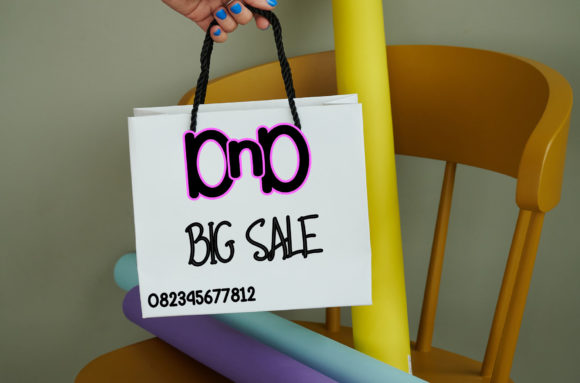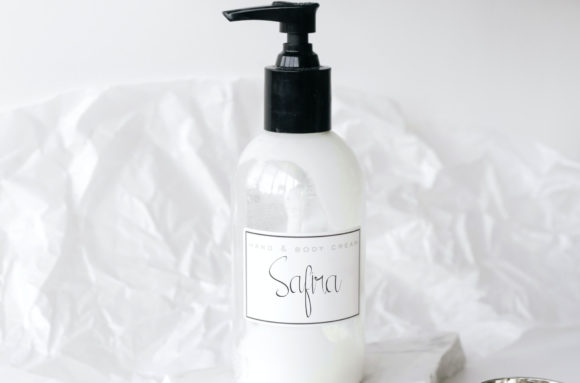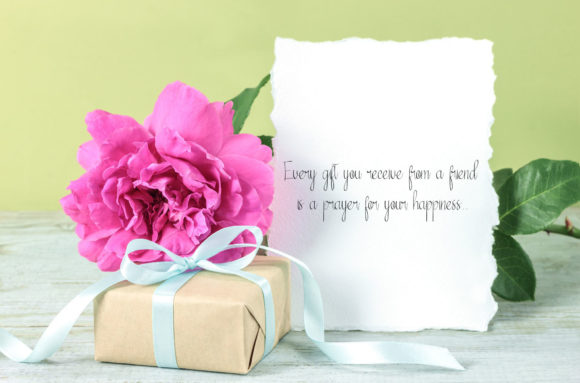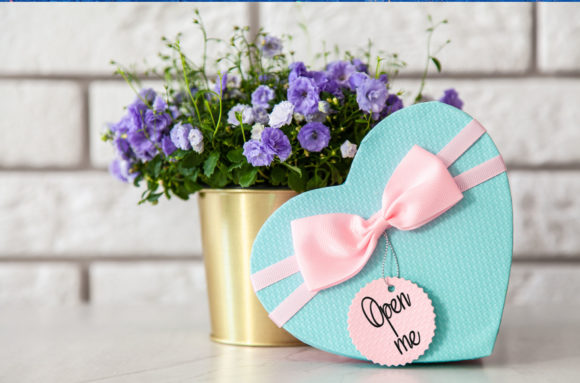
Discover the Charm of Amsterdam Font: Elevate Your Designs with a Personal Touch
Are you tired of using the same old fonts in your designs? Look no further than the Amsterdam Font, a stunning handwritten typeface that adds a touch of elegance and personality to any project. This beautiful font is perfect for designers and crafters looking to create unique and eye-catching branding materials, signs, invitations, business cards, and more.
The Beauty of Handwritten Typography
The Amsterdam Font is a masterpiece of handwritten typography, with each letter carefully crafted to exude a sense of sophistication and charm. The font’s flowing lines and delicate curves give it a distinctly personal feel, making it perfect for designs that require a touch of warmth and character. Whether you’re creating a logo, invitation, or business card, the Amsterdam Font is sure to make your design stand out from the crowd.
One of the best things about the Amsterdam Font is its versatility. This font can be used in a wide range of design applications, from branding materials and advertising to invitations and packaging. Its elegant and refined appearance makes it suitable for high-end designs, while its playful and whimsical feel also lends itself well to more creative and artistic projects.
The Amsterdam Font is a must-have for designers and crafters looking to add a personal touch to their work. With its unique and eye-catching design, this font is sure to inspire creativity and take your designs to the next level. Whether you’re a professional designer or a hobbyist crafter, the Amsterdam Font is a valuable addition to your toolkit.
Why Choose Amsterdam Font?
- Unique and eye-catching design: The Amsterdam Font is a one-of-a-kind typeface that will set your designs apart from the crowd.
- Perfect for branding materials: This font is ideal for creating logos, business cards, and other branding materials that require a touch of elegance and sophistication.
- Great for invitations and events: The Amsterdam Font is perfect for creating invitations, wedding cards, and other event materials that require a touch of whimsy and charm.
Tips for Using Amsterdam Font
To get the most out of the Amsterdam Font, here are a few tips to keep in mind:
- Use it sparingly: While the Amsterdam Font is beautiful, it can be overwhelming if used too much. Use it sparingly to add a touch of elegance and sophistication to your designs.
- Experiment with colors: The Amsterdam Font looks great in a variety of colors, so don’t be afraid to experiment and find the perfect hue for your design.
- Pair it with other fonts: The Amsterdam Font pairs well with other fonts, so try combining it with a bold or sans-serif font to create a unique and eye-catching design.
The Amsterdam Font is a stunning handwritten typeface that adds a touch of elegance and personality to any design. With its unique and eye-catching design, versatility, and ease of use, this font is a must-have for designers and crafters looking to take their designs to the next level. Whether you’re creating branding materials, invitations, or business cards, the Amsterdam Font is sure to make your design stand out from the crowd.